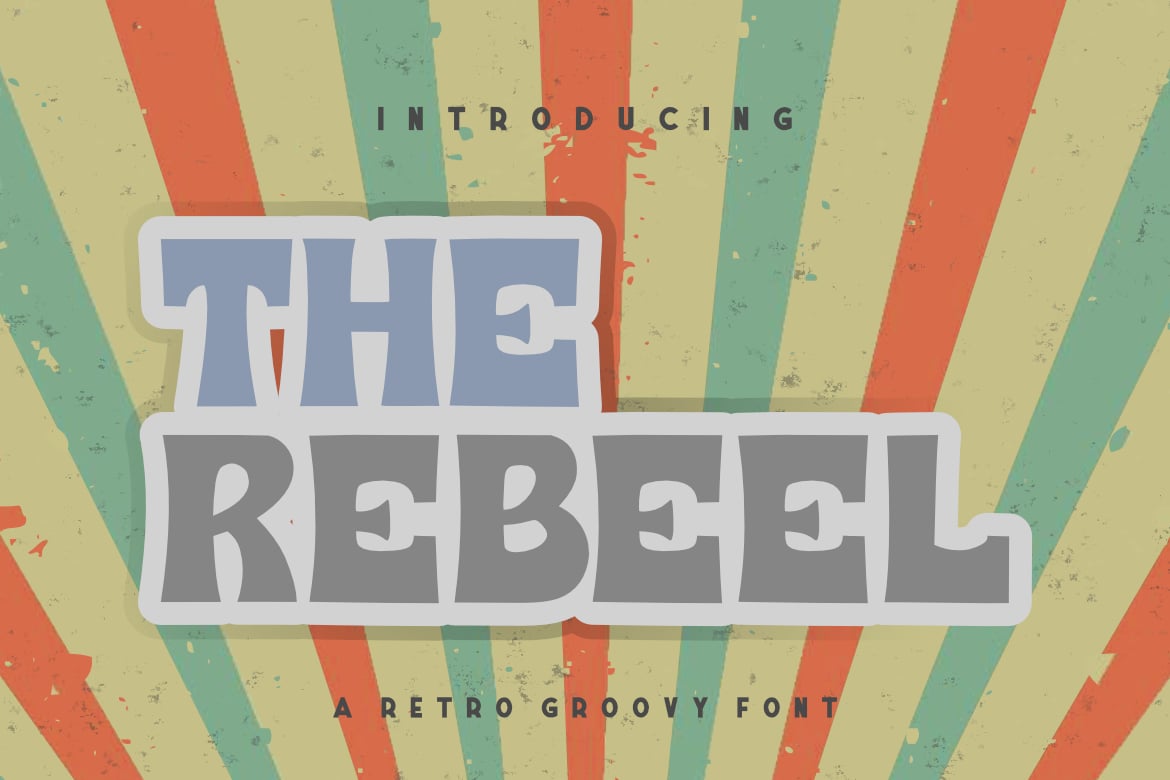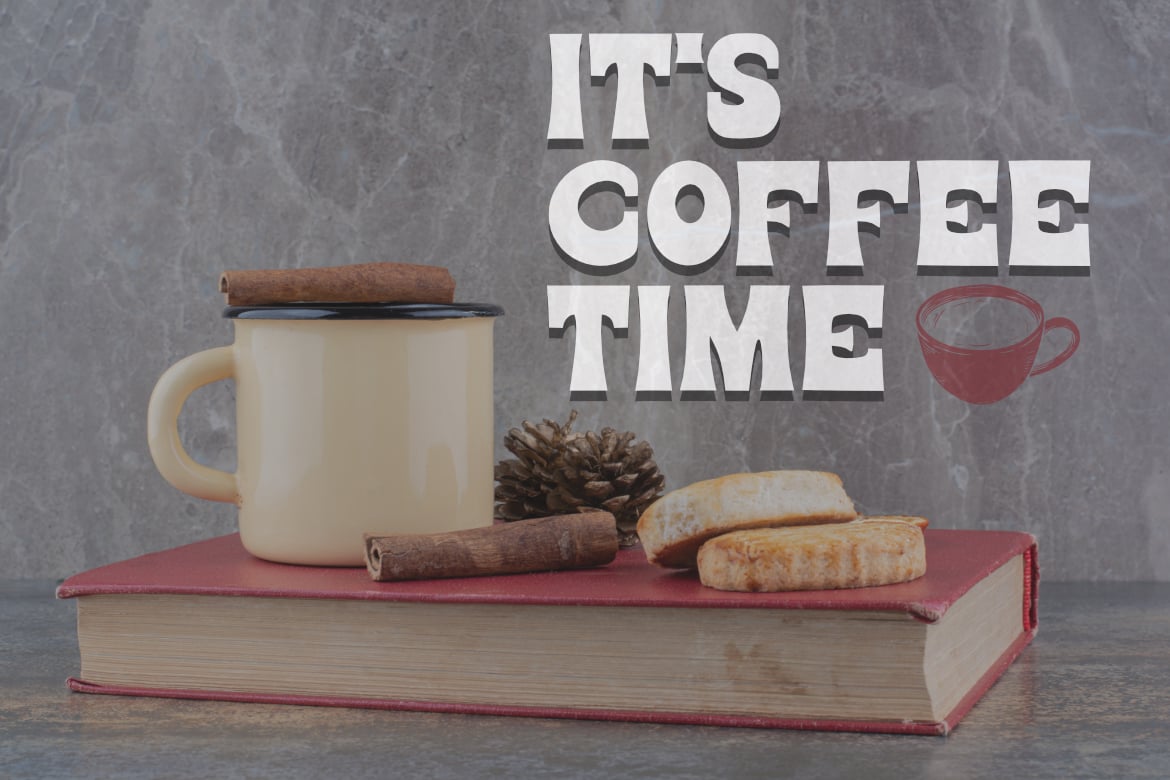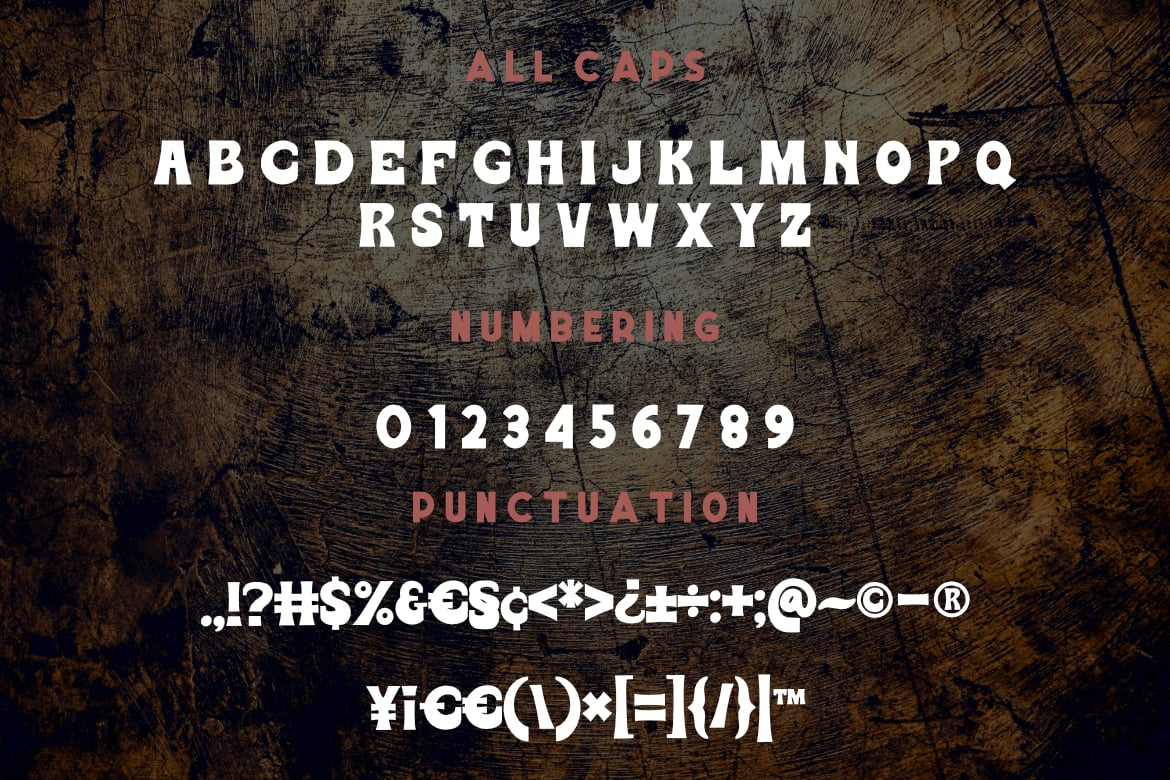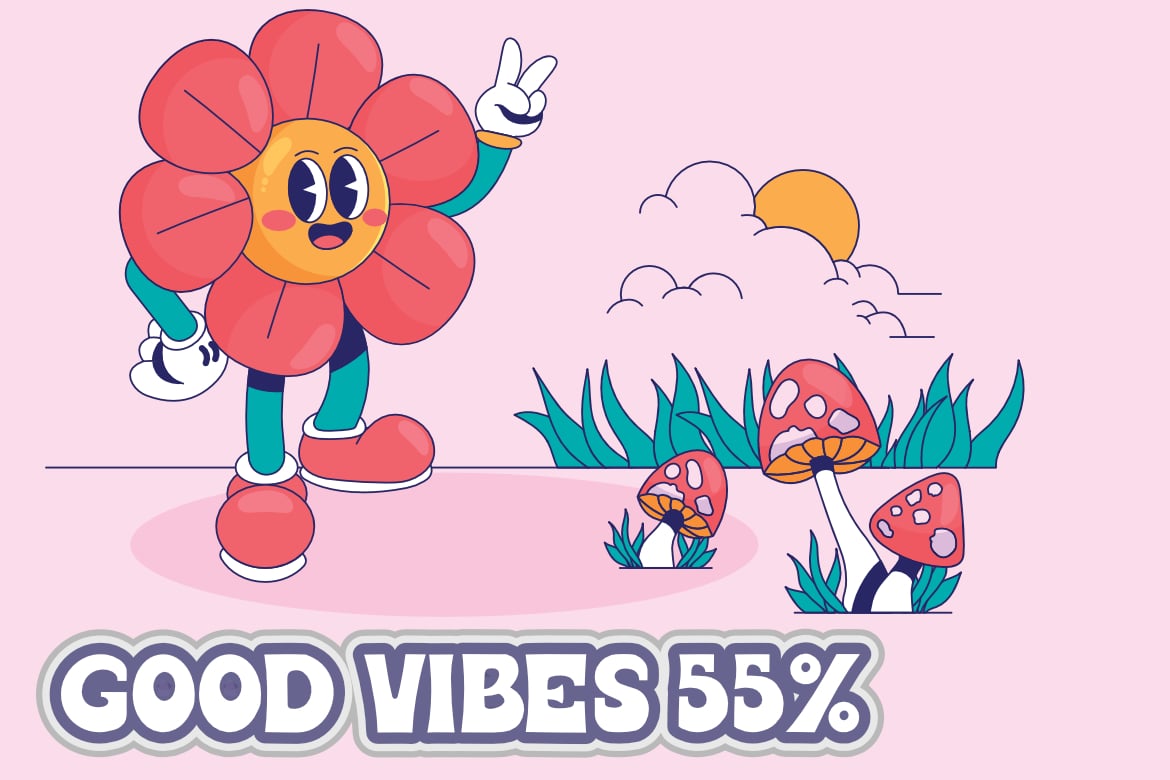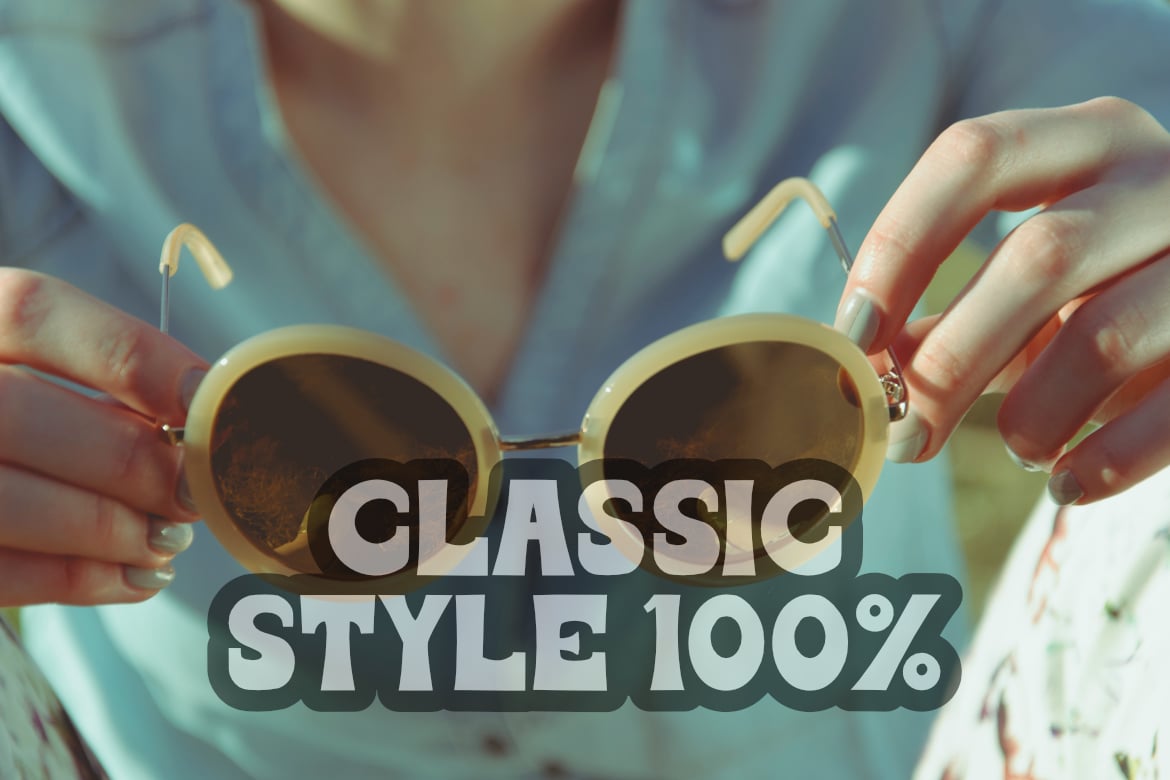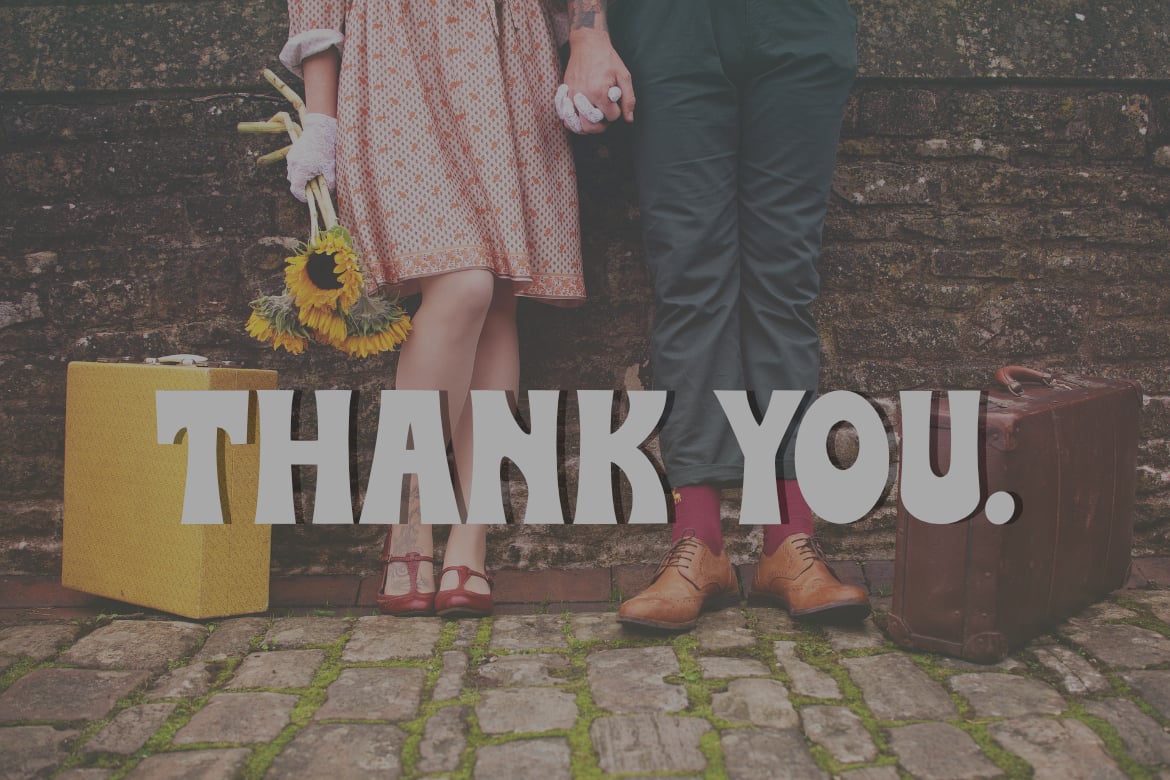
THE REBEEL | Retro Groovy Font
THE REBEEL Retro Groovy Font, This font is made with a high premium quality level which you can use as flyers, quotes, posters, banners, packaging, merchandise, logotypes and much more.